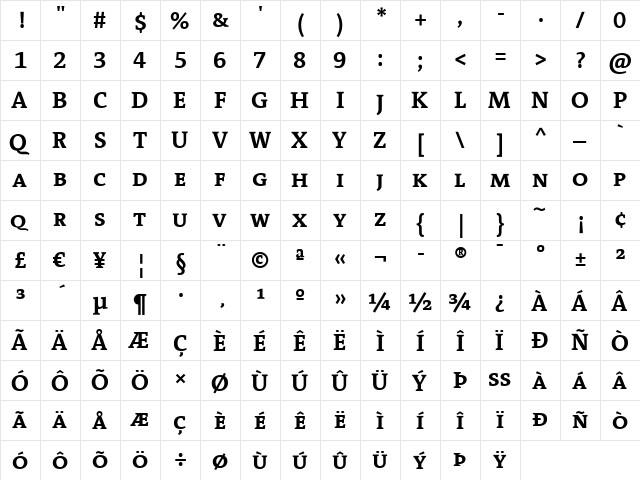
Sun Serif Caps- Bold
Design Context for Sun Serif Caps- Typeface
Sun Serif Caps- carries the refined structure of traditional serif typography, with bracketed terminals and considered proportions that communicate credibility and craft. The heavy weight commands attention and anchors typographic hierarchies.
Pro Tip: Use Sun Serif Caps- for editorial body copy and considered headline work. Pair with a neutral sans for UI elements or captions to create a classic hierarchy.